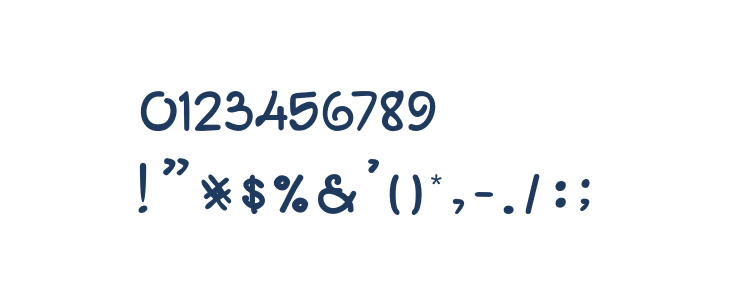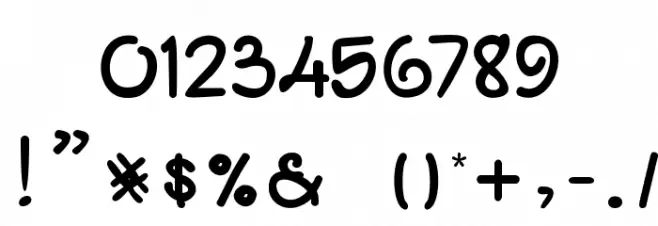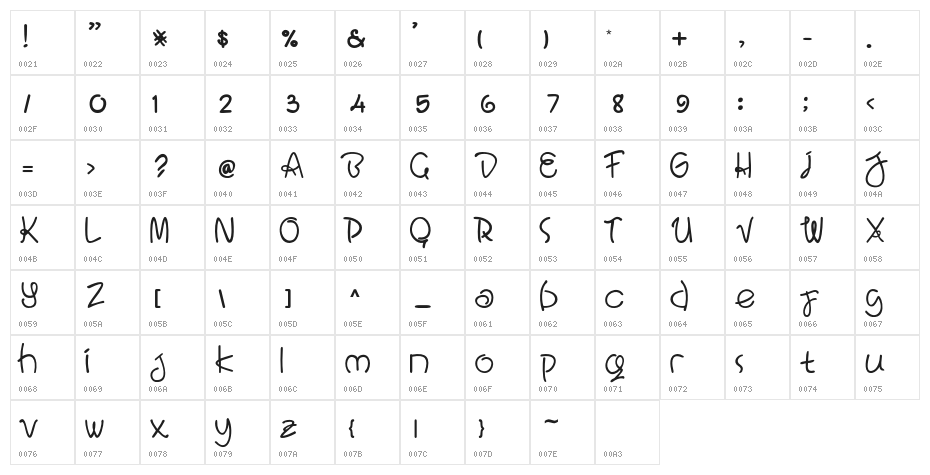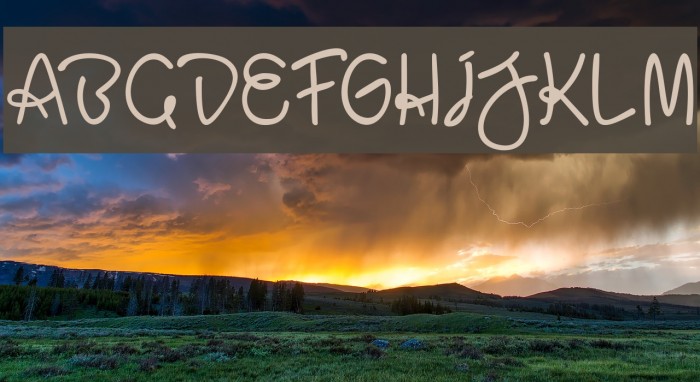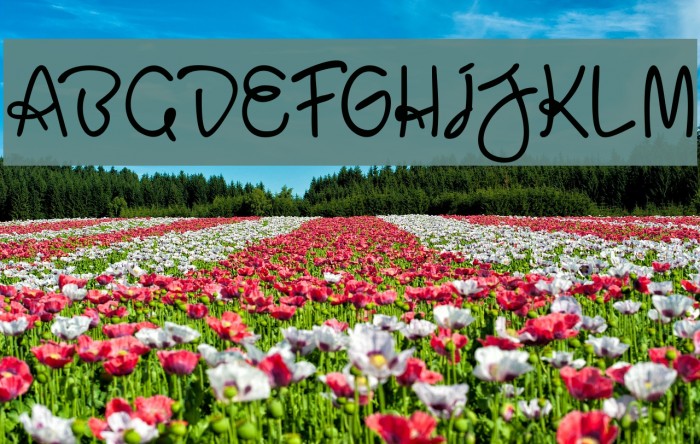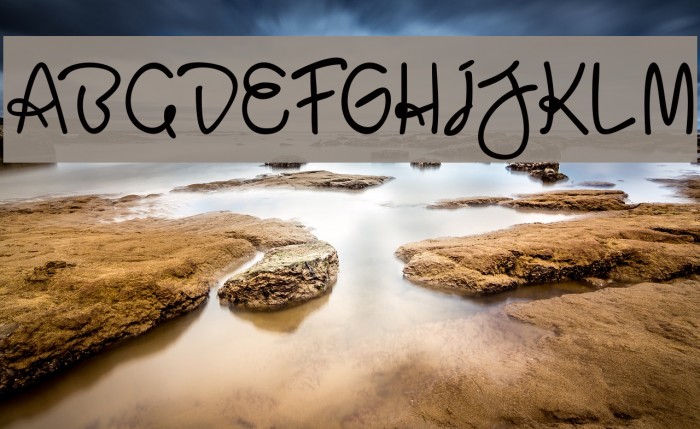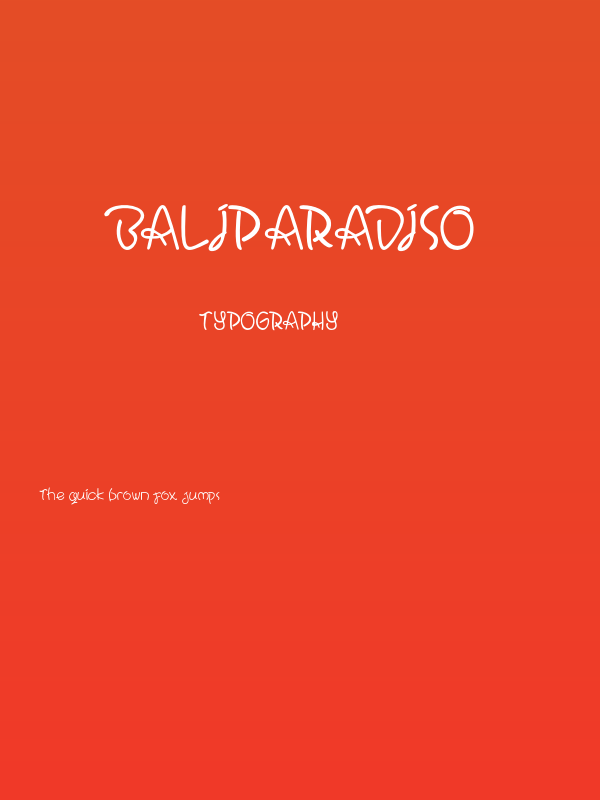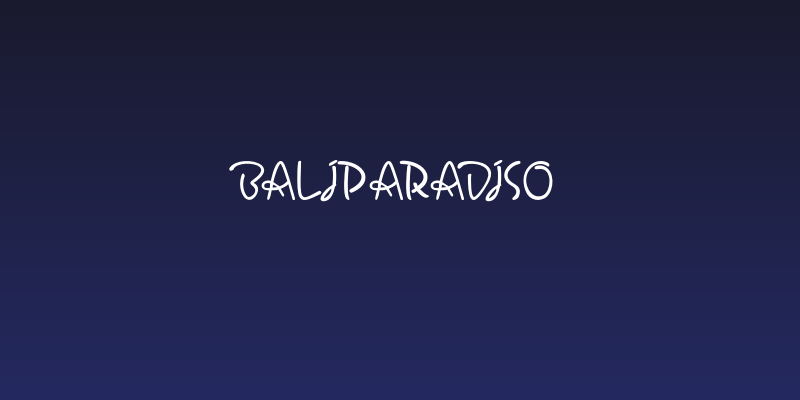
BaliParadiso Font
BaliParadiso Description
This font exhibits a playful and casual handwritten style, characterized by its fluid and organic letterforms. The uppercase and lowercase letters maintain a consistent flow, with rounded edges and a slightly irregular baseline that adds to its informal charm. The numerals and special characters follow the same whimsical design, making it suitable for creative and artistic projects. Its unique style is both approachable and friendly, making it ideal for projects that require a personal touch. The font's overall appearance is lively and energetic, with a touch of spontaneity.
| Use Case | Logos, Headlines, Informal text |
| Proposed Projects | Greeting cards, children's books, personal blogs, creative branding, and informal invitations. |